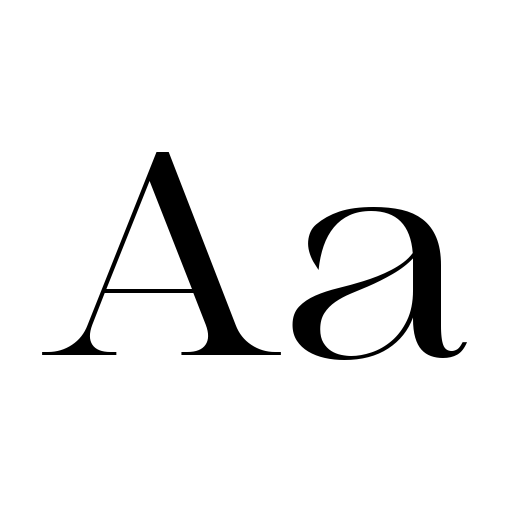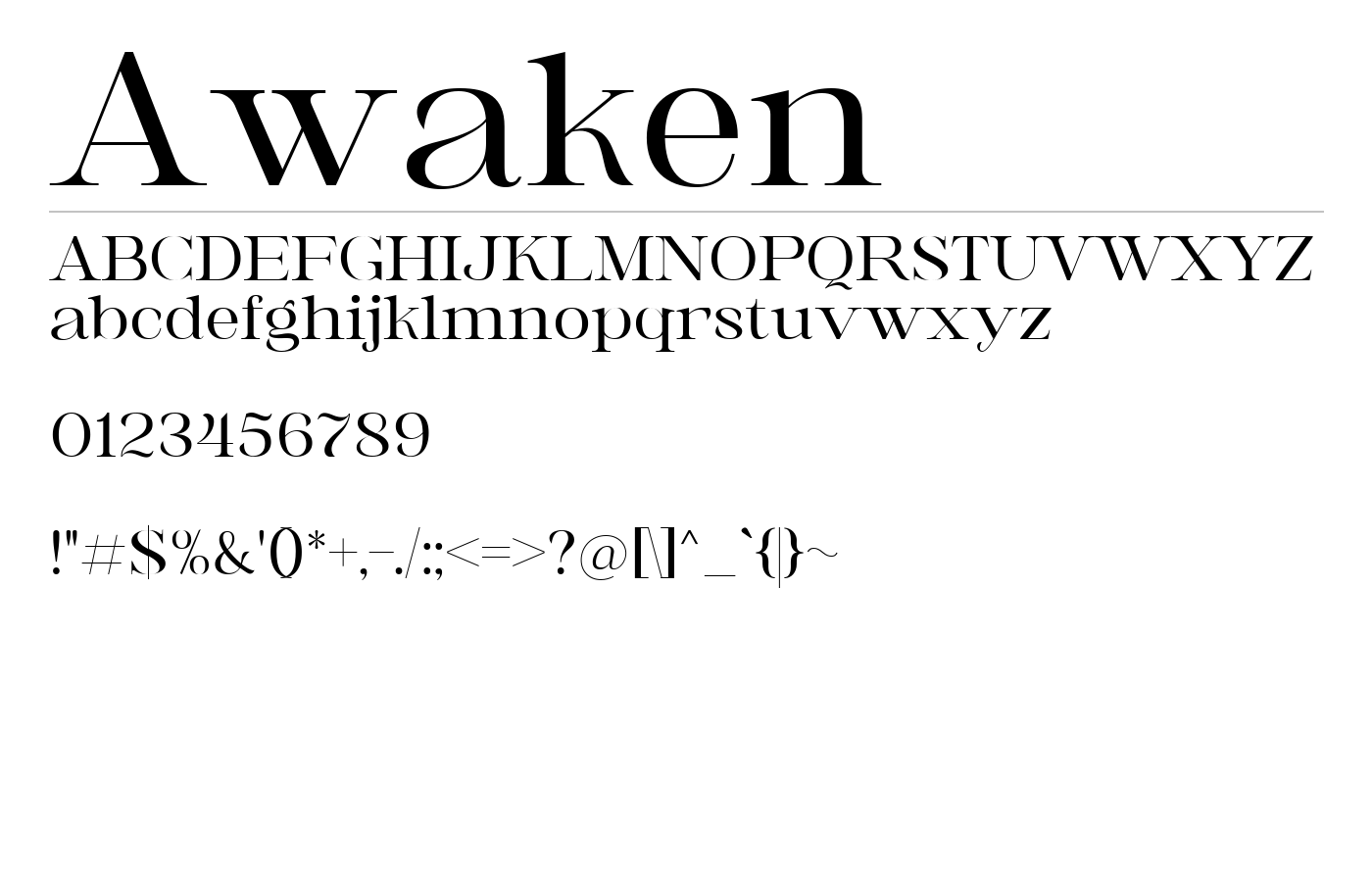
Awaken is an elegant serif font characterized by its high contrast between thick and thin strokes, slender bracketed serifs, and refined, classic letterforms. With a moderate x-height and a timeless style, it combines traditional sophistication with modern clarity, making it an excellent choice for upscale branding, editorial layouts, and luxury packaging. Its graceful curves and distinct details evoke a sense of refinement and professionalism, perfect for headlines and display use.
Awaken Font
About Awaken Font
| Font family | Awaken Font |
| Designer | Candi Erwanto |